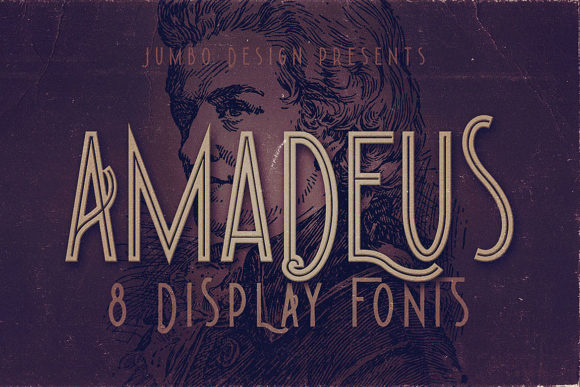
Introducing Amadeus Font: A Unique and Vintage Display Font
The Amadeus font is a distinctive and stylish display font that has been gaining popularity among designers and typography enthusiasts. With its unique and vintage aesthetic, this font is perfect for creating eye-catching designs that stand out from the crowd. In this article, we’ll take a closer look at the Amadeus font, its features, and how you can use it to elevate your design projects.
Key Features of Amadeus Font
- 8 Unique Styles: The Amadeus font comes with 8 unique styles, giving you a wide range of creative possibilities with just one download.
- Vintage Aesthetic: The font boasts a distinctive vintage look that’s perfect for creating designs that evoke a sense of nostalgia and classic elegance.
- Display Font: The Amadeus font is specifically designed as a display font, making it ideal for headlines, titles, and other prominent text elements.
Exploring Design Possibilities with Amadeus Font
With 8 unique styles at your disposal, the creative possibilities with Amadeus font are endless. Here are a few ideas to get you started:
- Mix and Match: Combine different styles to create visually appealing contrasts and add depth to your designs.
- Play with Sizes: Experiment with different font sizes to create a hierarchy of text elements and add emphasis to your message.
- Customize and Edit: Don’t be afraid to get creative and edit the font to suit your design needs. Change the letter spacing, adjust the font color, or add effects to make it truly unique.
Who Can Benefit from Using Amadeus Font?
The Amadeus font is versatile and can be used in a variety of design projects, including:
- Branding and Logo Design: Create a memorable brand identity with the Amadeus font’s unique and vintage style.
- Advertising and Marketing: Use the font to create eye-catching headlines and promotional materials that grab attention.
- Packaging Design: Add a touch of elegance and sophistication to your product packaging with the Amadeus font.
- Graphic Design: Incorporate the font into your graphic design projects, such as brochures, flyers, and posters.
Tips for Using Amadeus Font Effectively
To get the most out of the Amadeus font, keep the following tips in mind:
- Use it Sparingly: As a display font, the Amadeus font is best used in moderation. Reserve it for headlines and titles to create maximum impact.
- Pair it with Other Fonts: Combine the Amadeus font with other fonts to create a harmonious and balanced design.
- Experiment with Colors: Try out different font colors and effects to add visual interest and personality to your designs.
The Amadeus font is a unique and stylish display font that offers a range of creative possibilities for designers and typography enthusiasts. With its vintage aesthetic and 8 unique styles, this font is perfect for creating eye-catching designs that stand out from the crowd. By following the tips outlined in this article, you can use the Amadeus font to elevate your design projects and add a touch of elegance and sophistication.